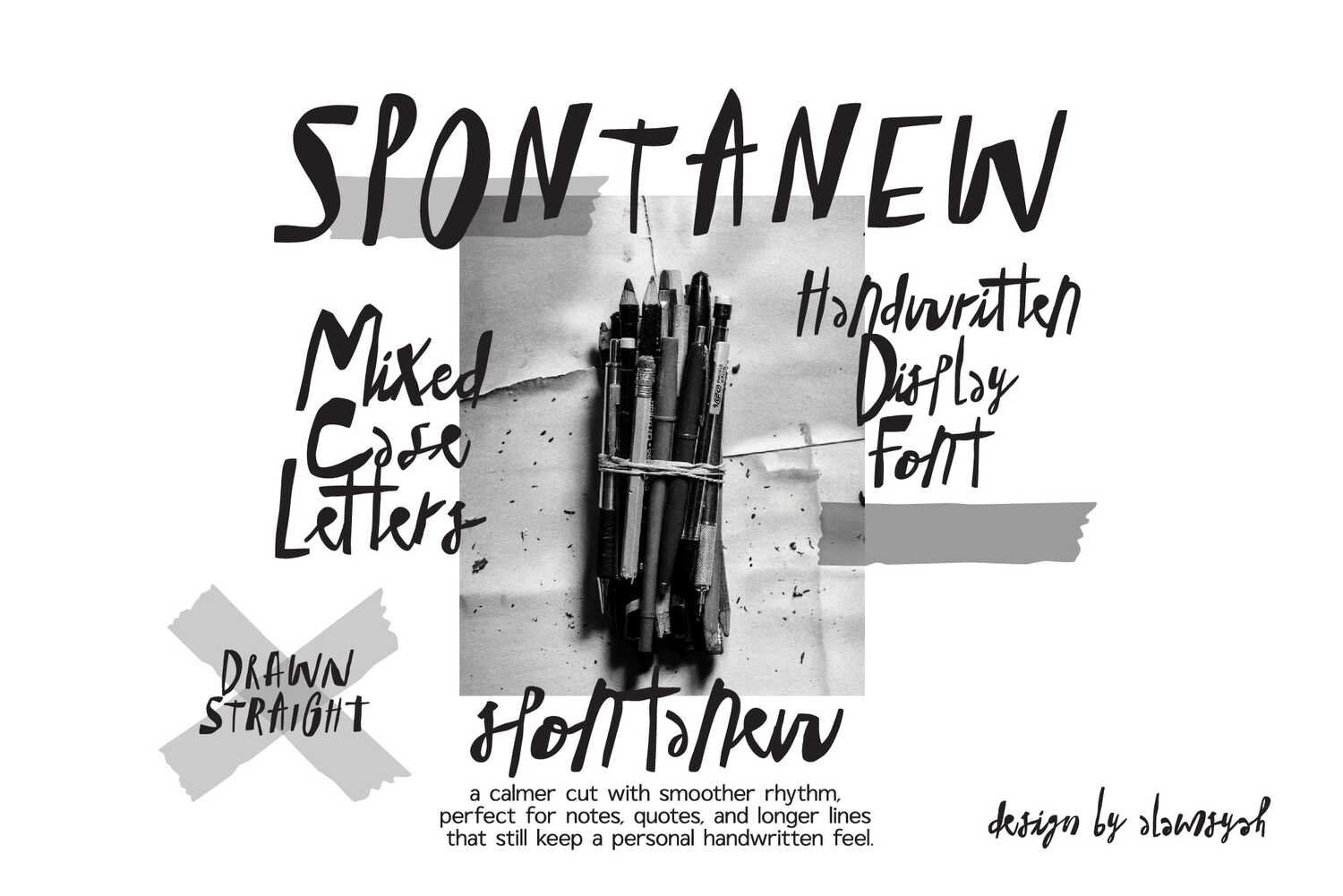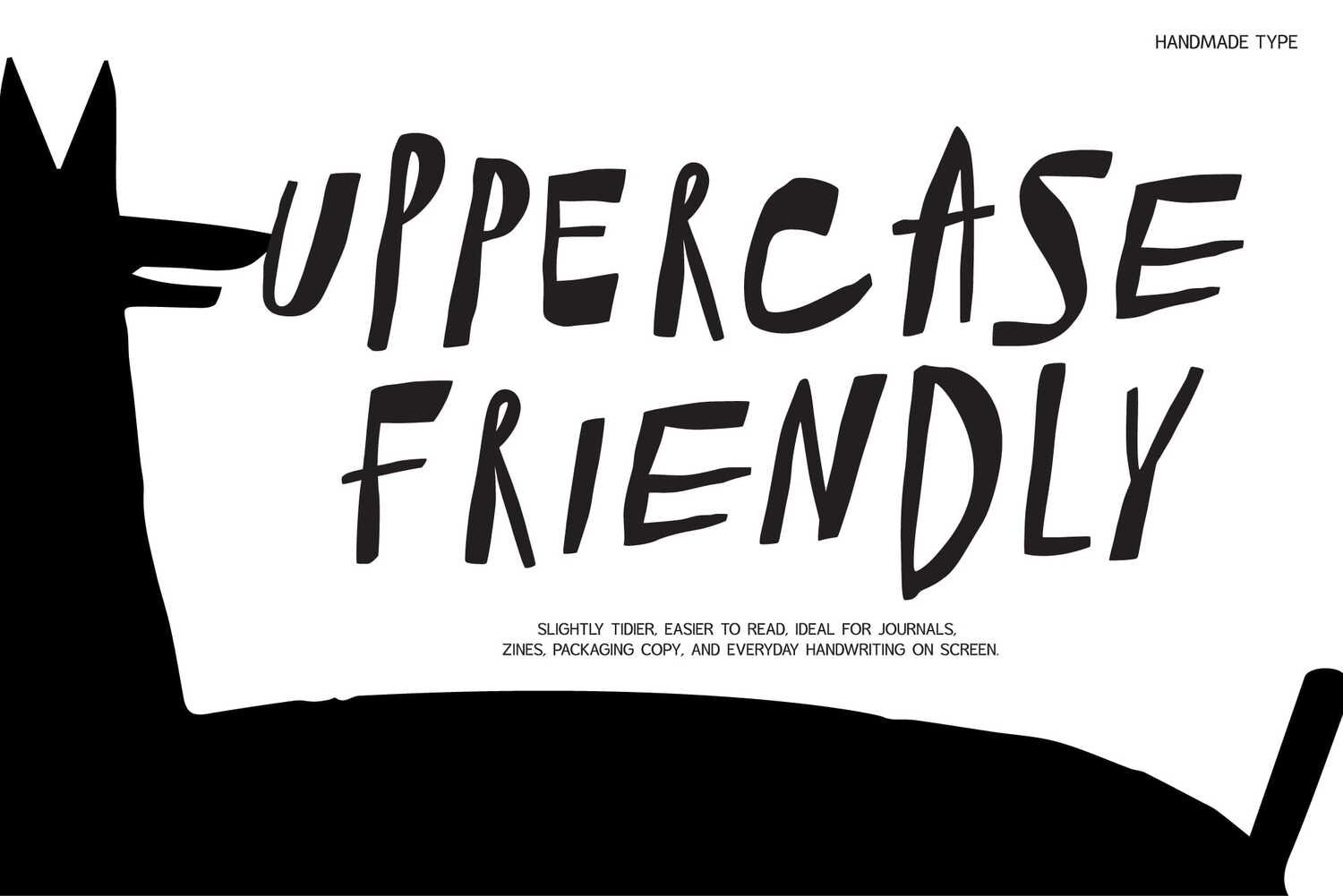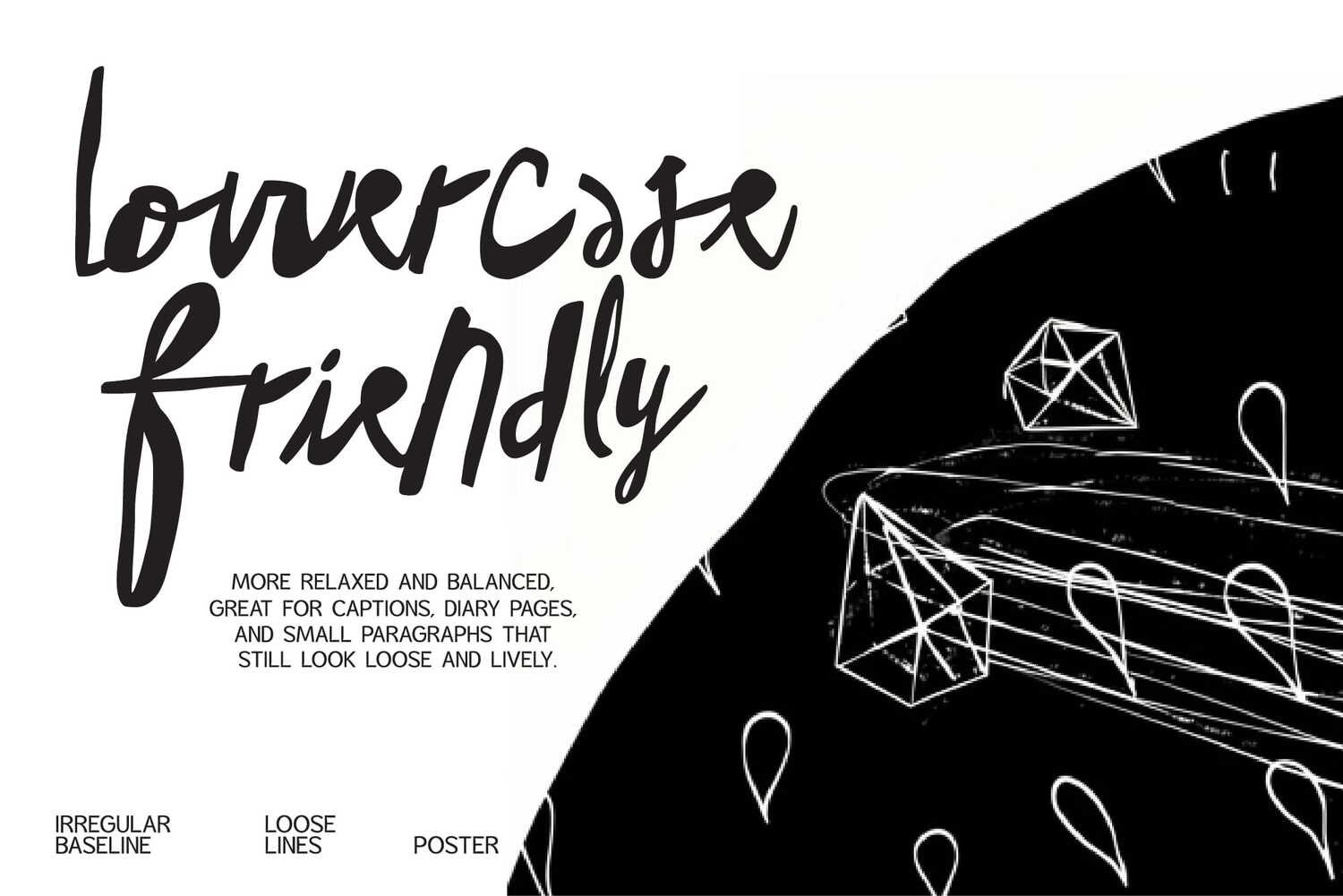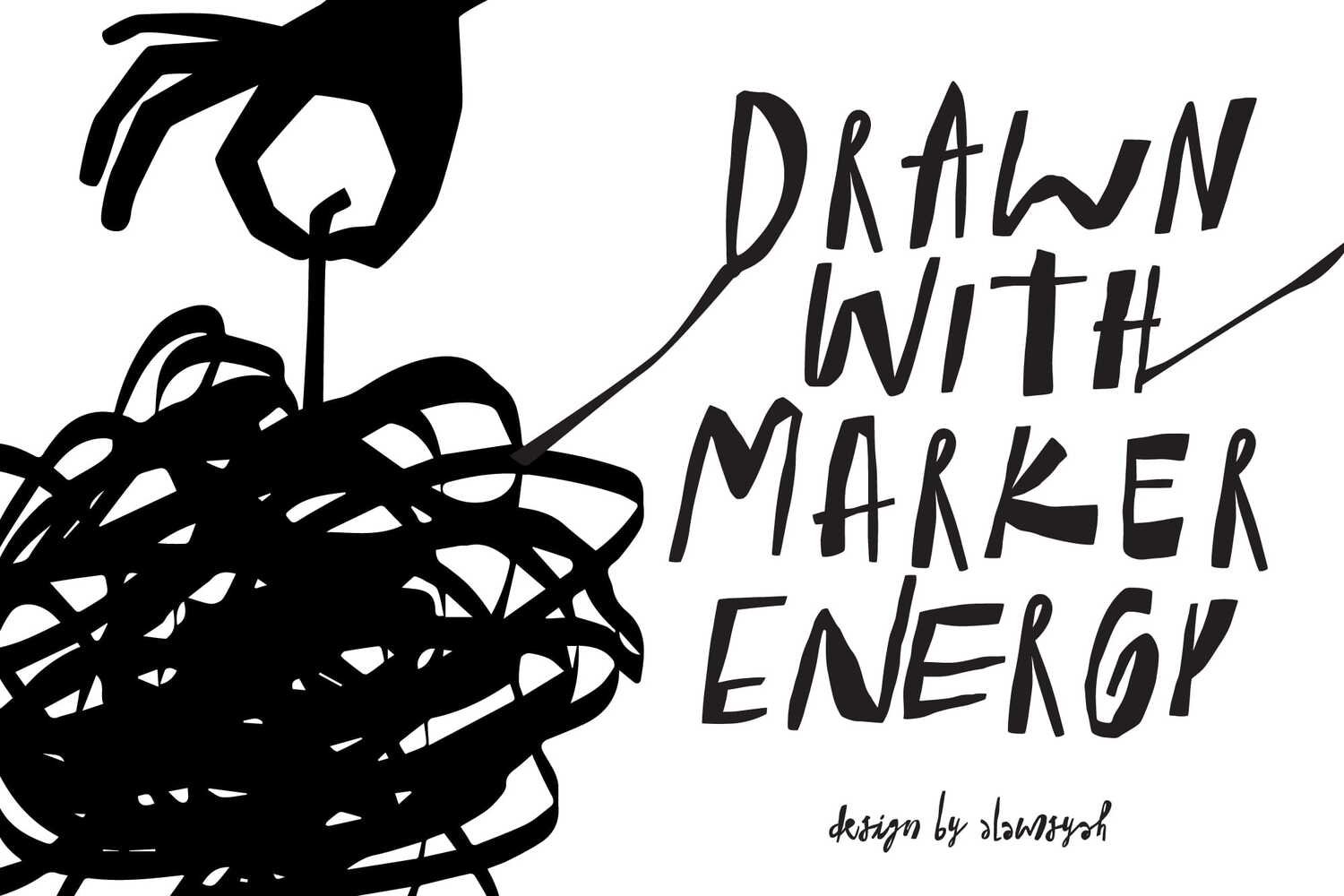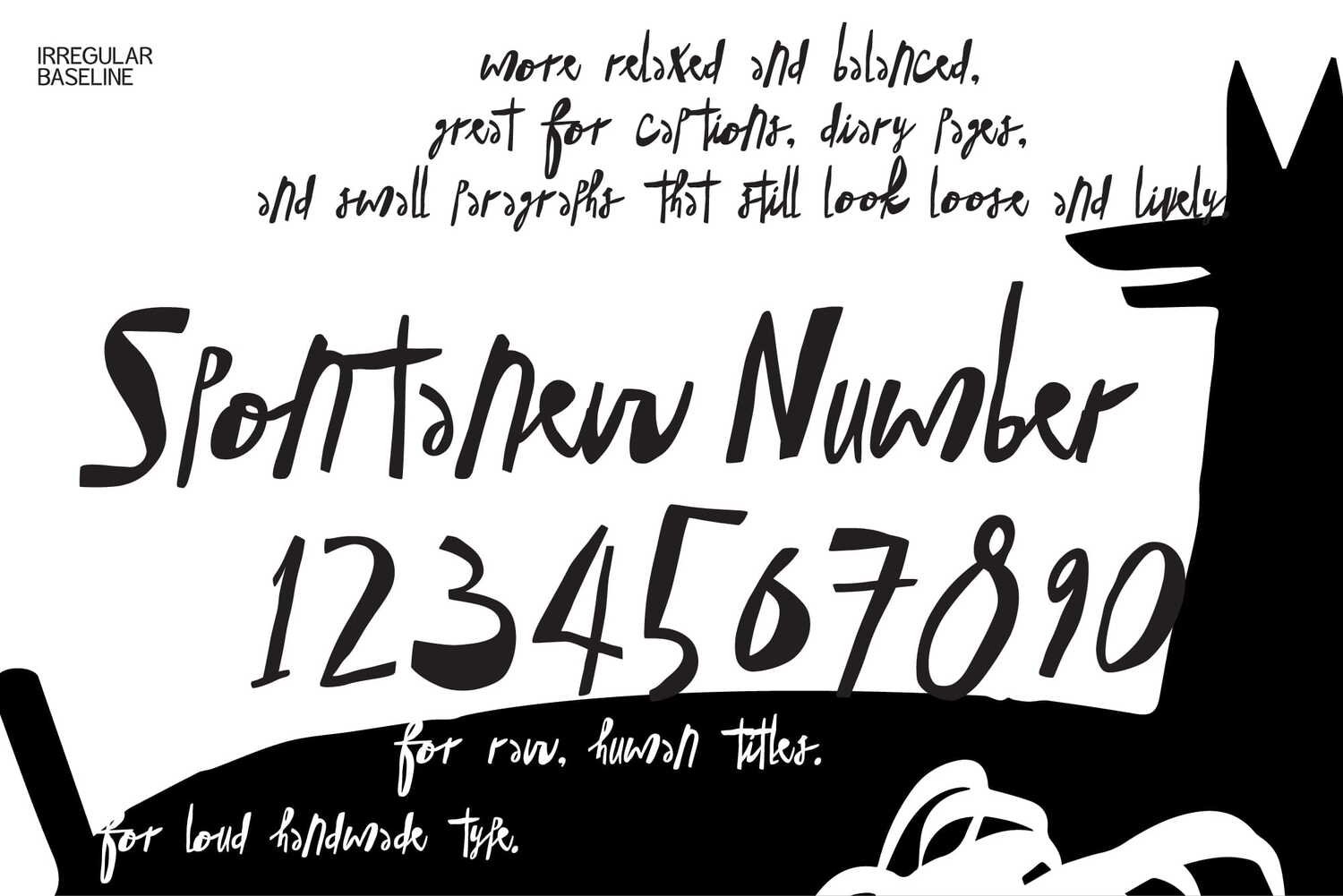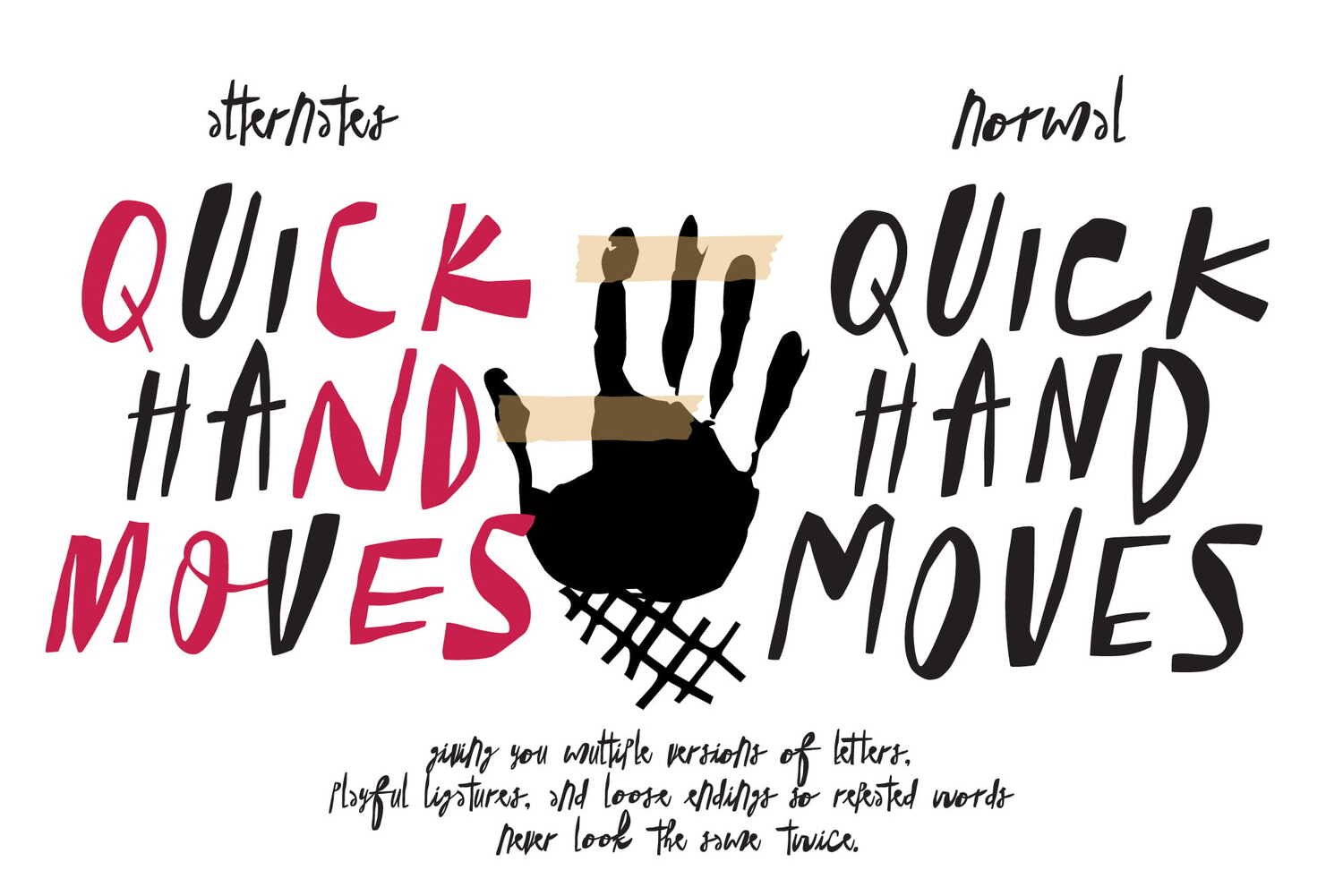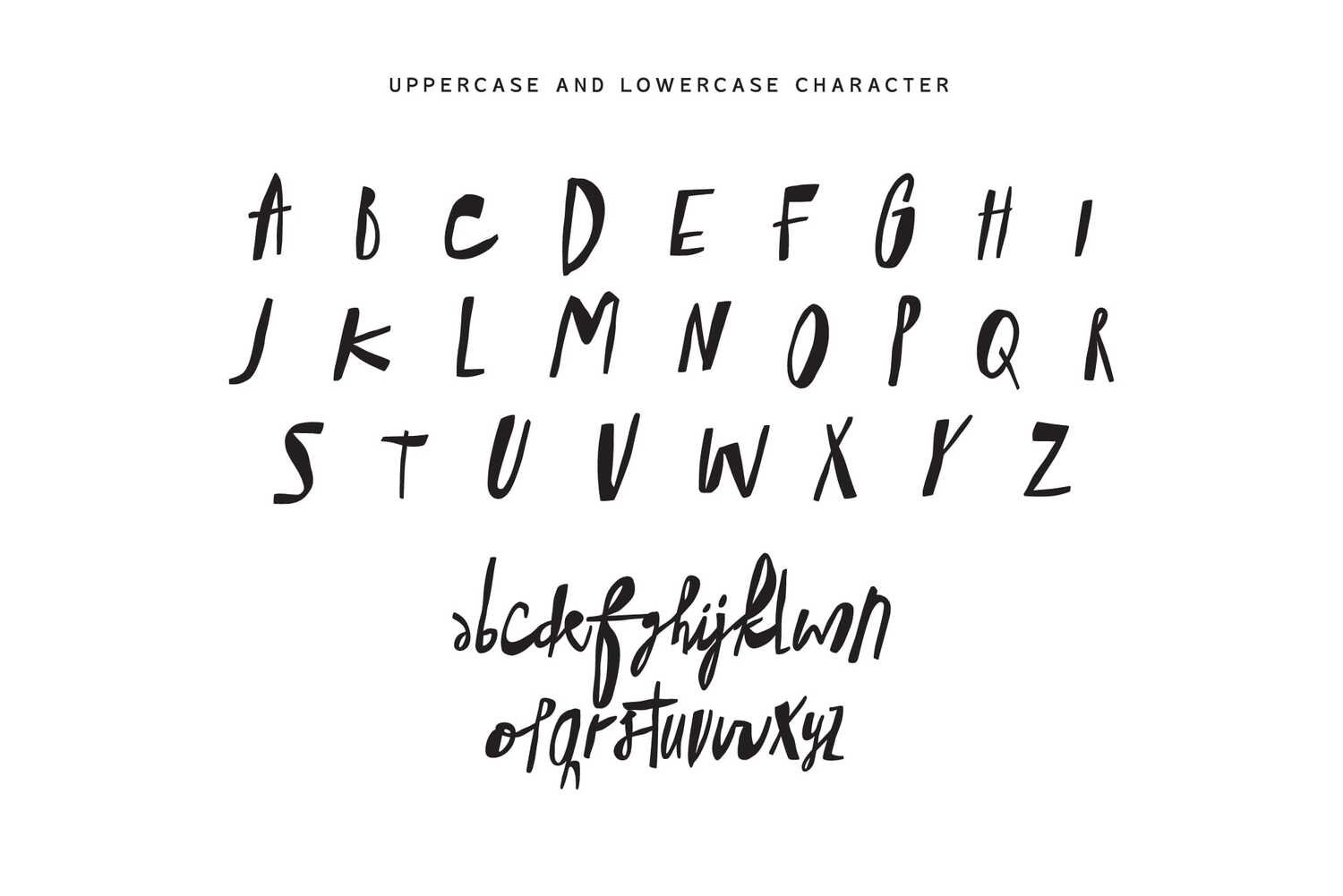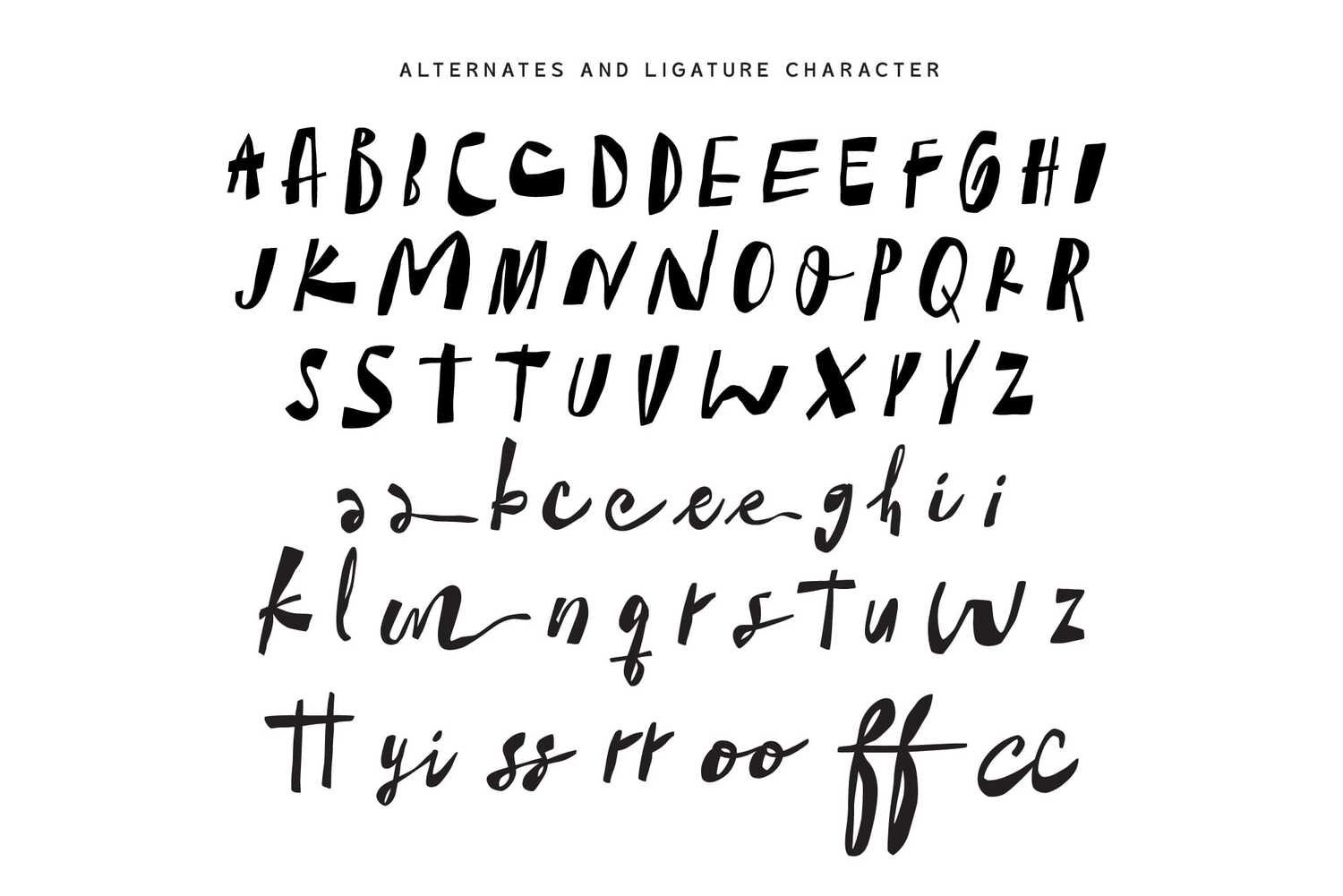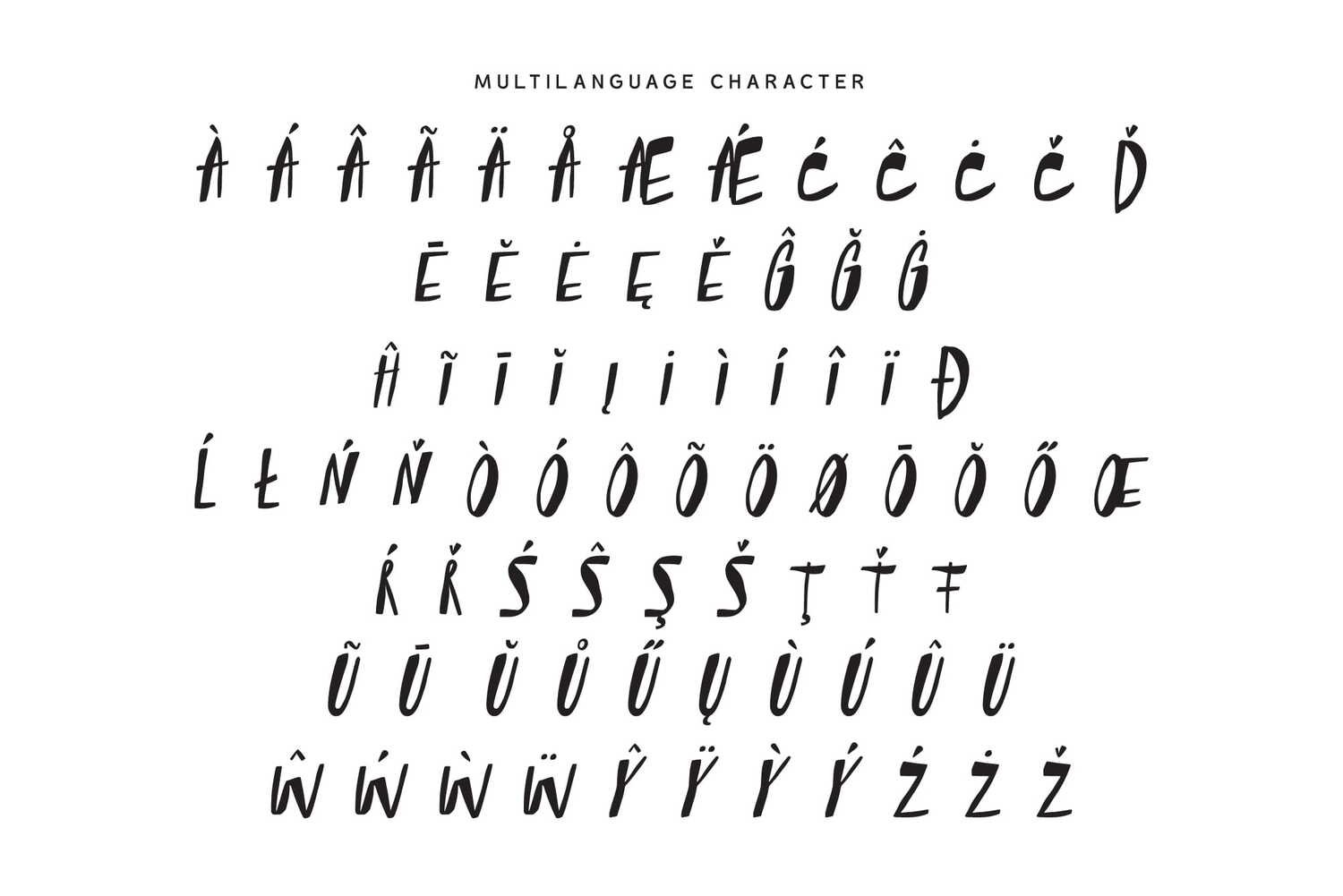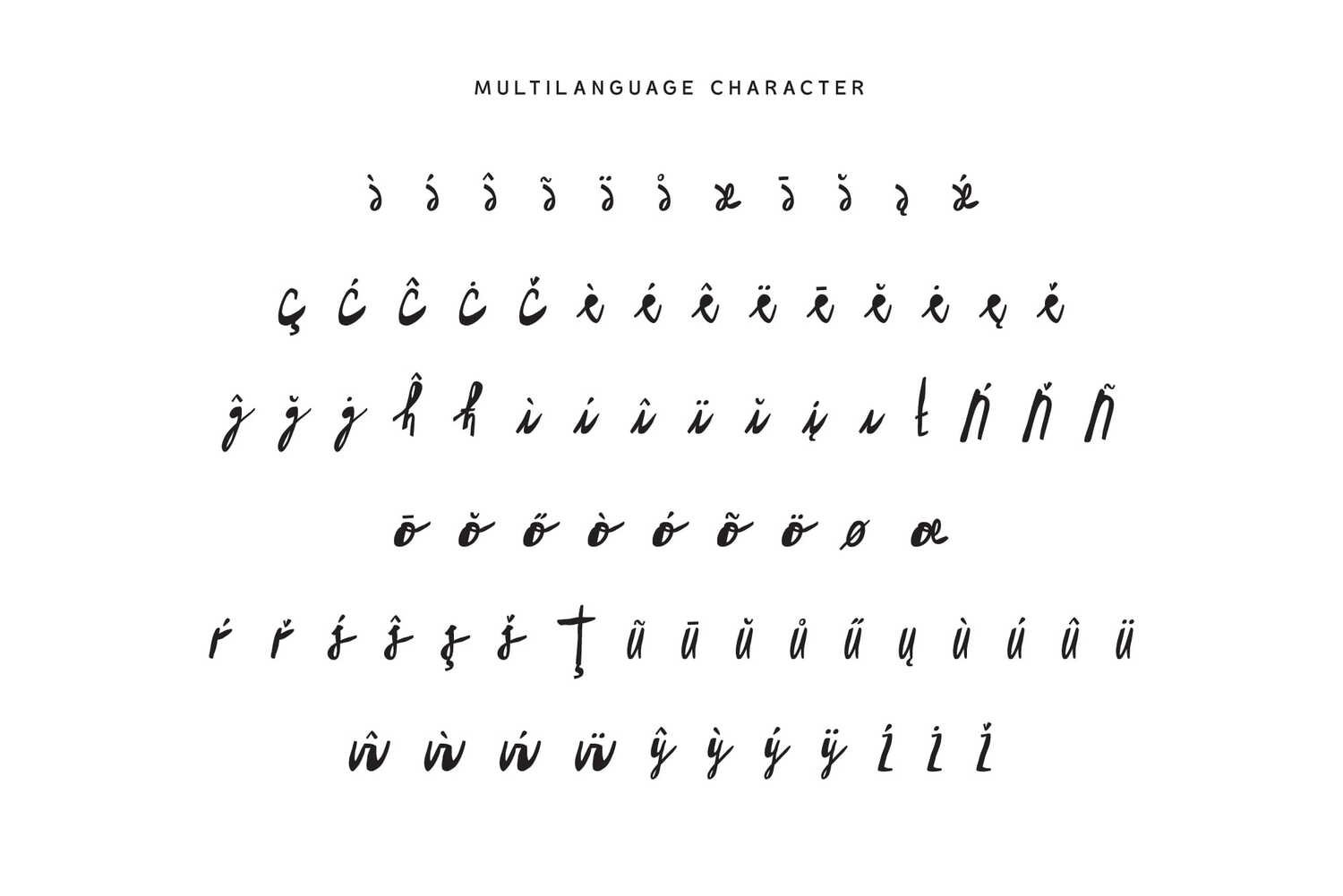
SPONTANEW is a handwritten display font defined by its dynamic mixed-case letters and dual styles, crafted to deliver a spontaneous, authentic, and deeply personal look. It’s the perfect choice for quotes, personal branding, social media notes, and poster headlines that demand a genuine, hand-drawn feel.
Its two distinct versions—a loud, straight-drawn display and a calmer, smoother cut for longer lines—are designed to offer maximum creative flexibility, making it an essential typeface for creatives seeking a blend of raw, spontaneous energy and readable, handwritten charm.